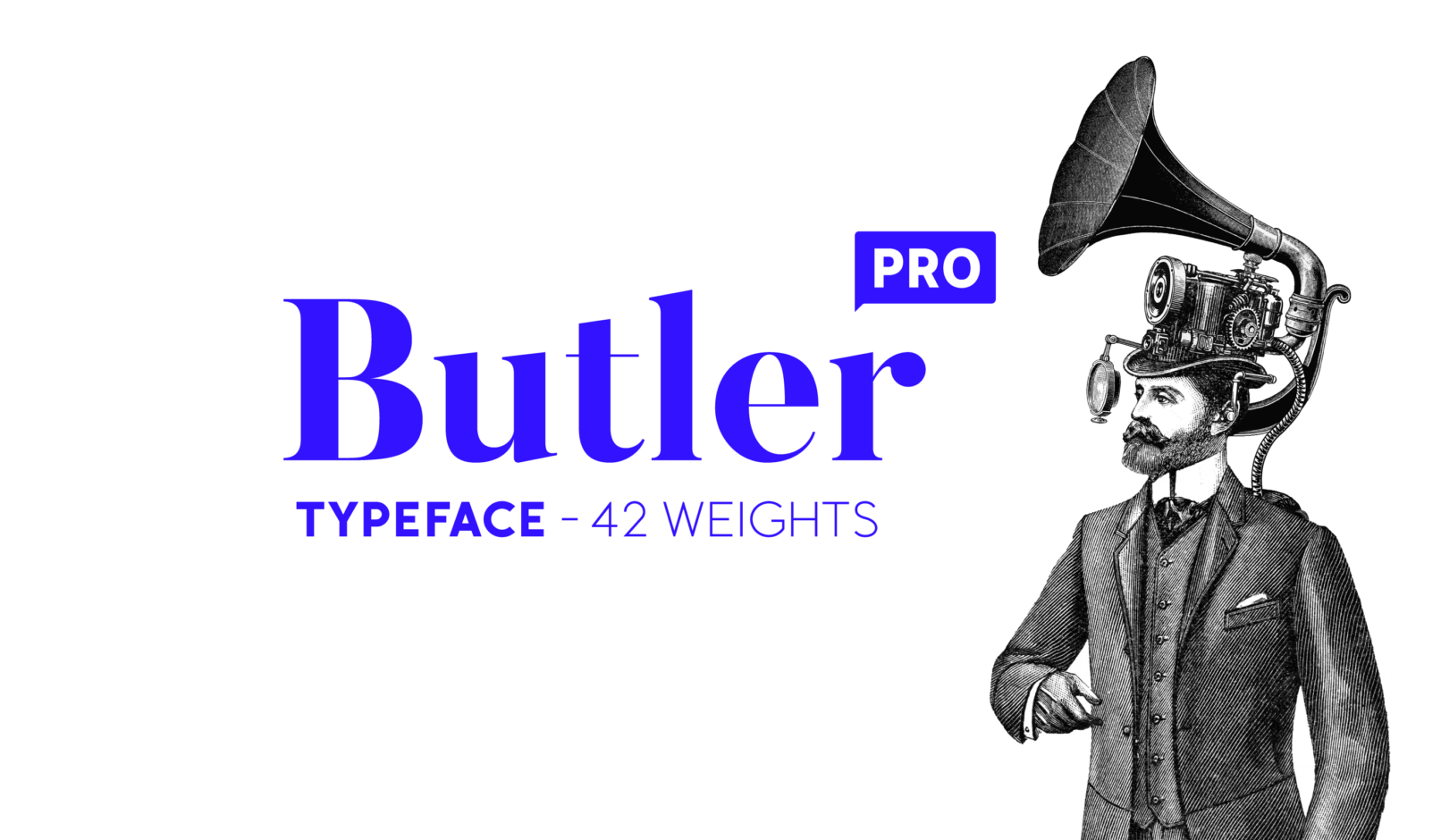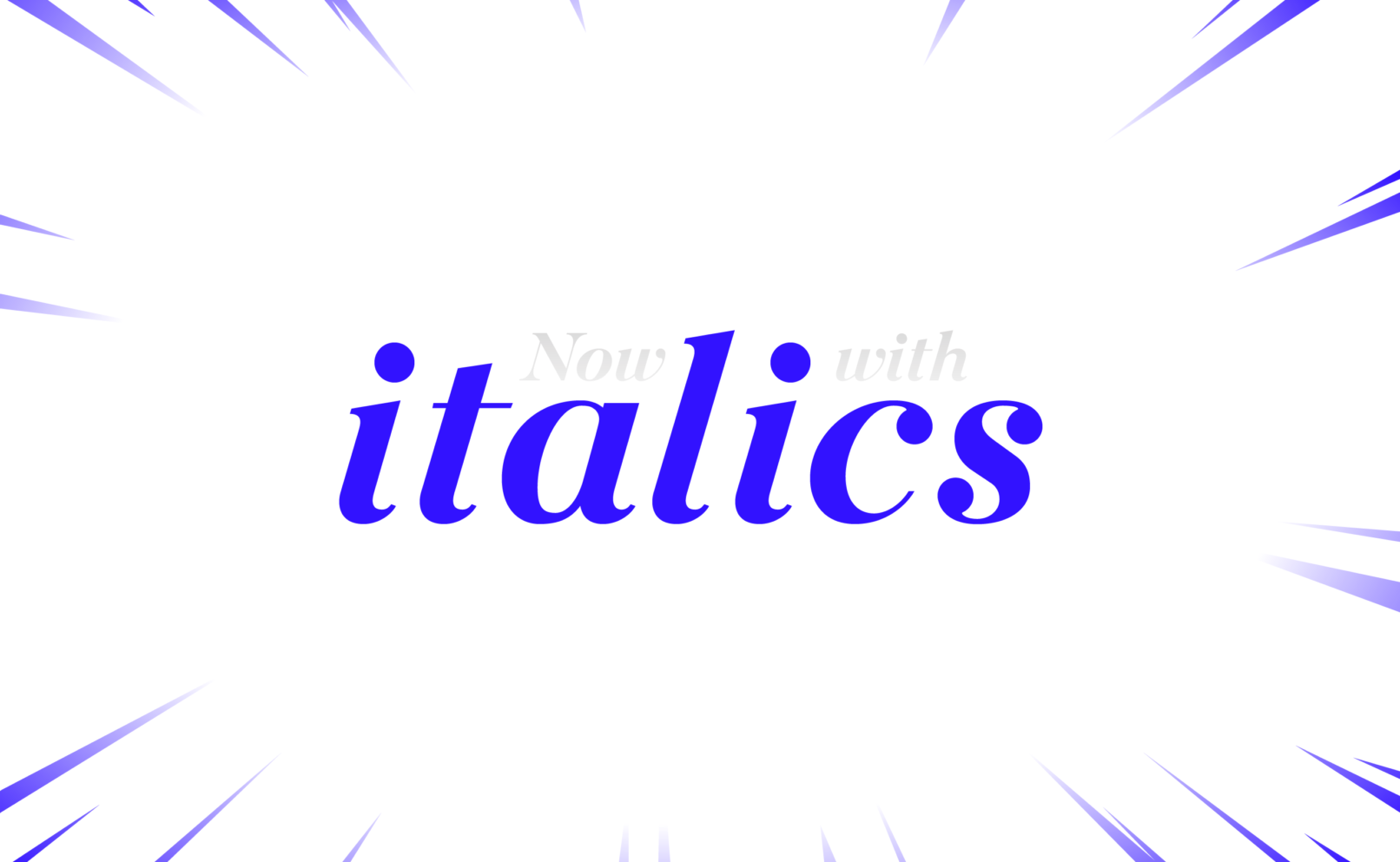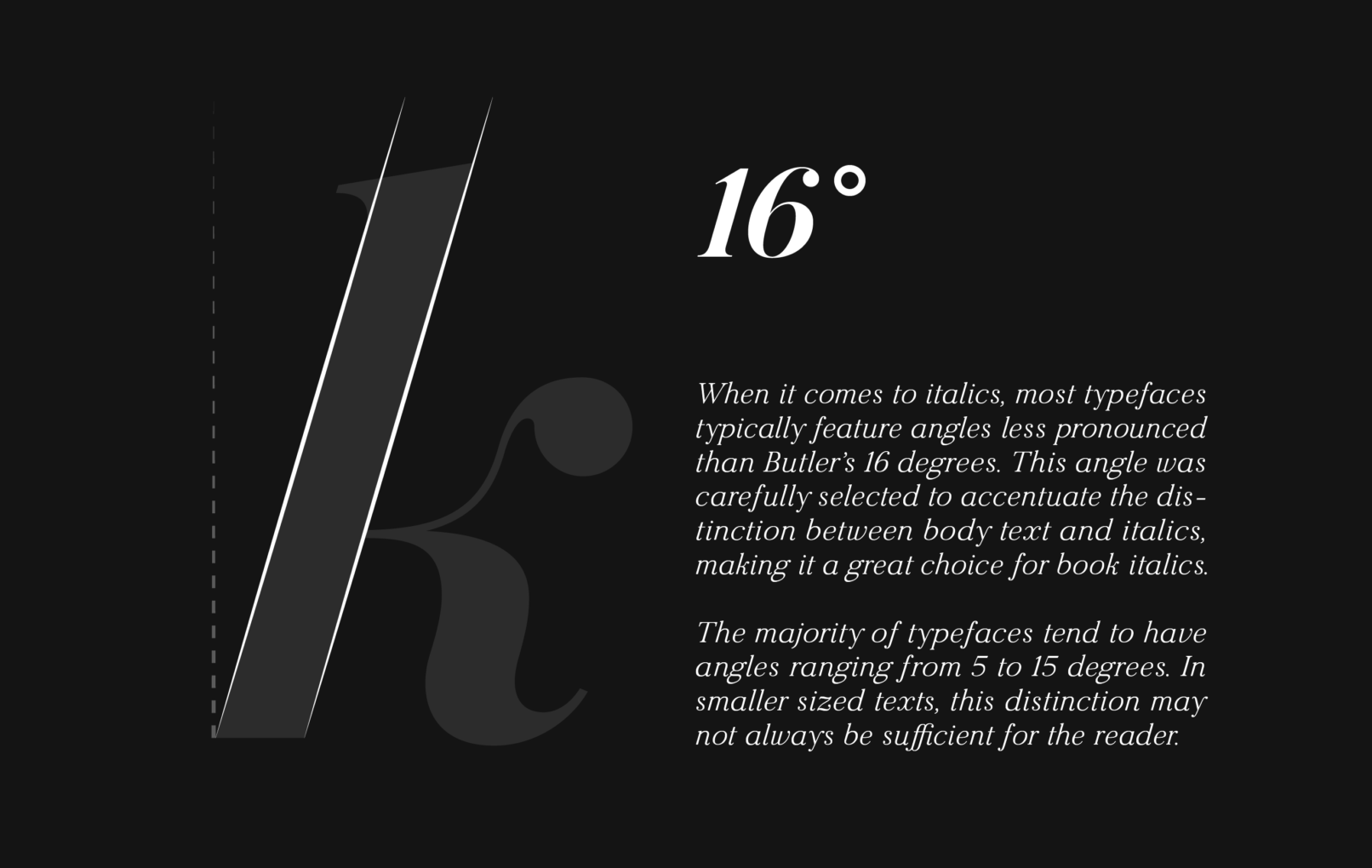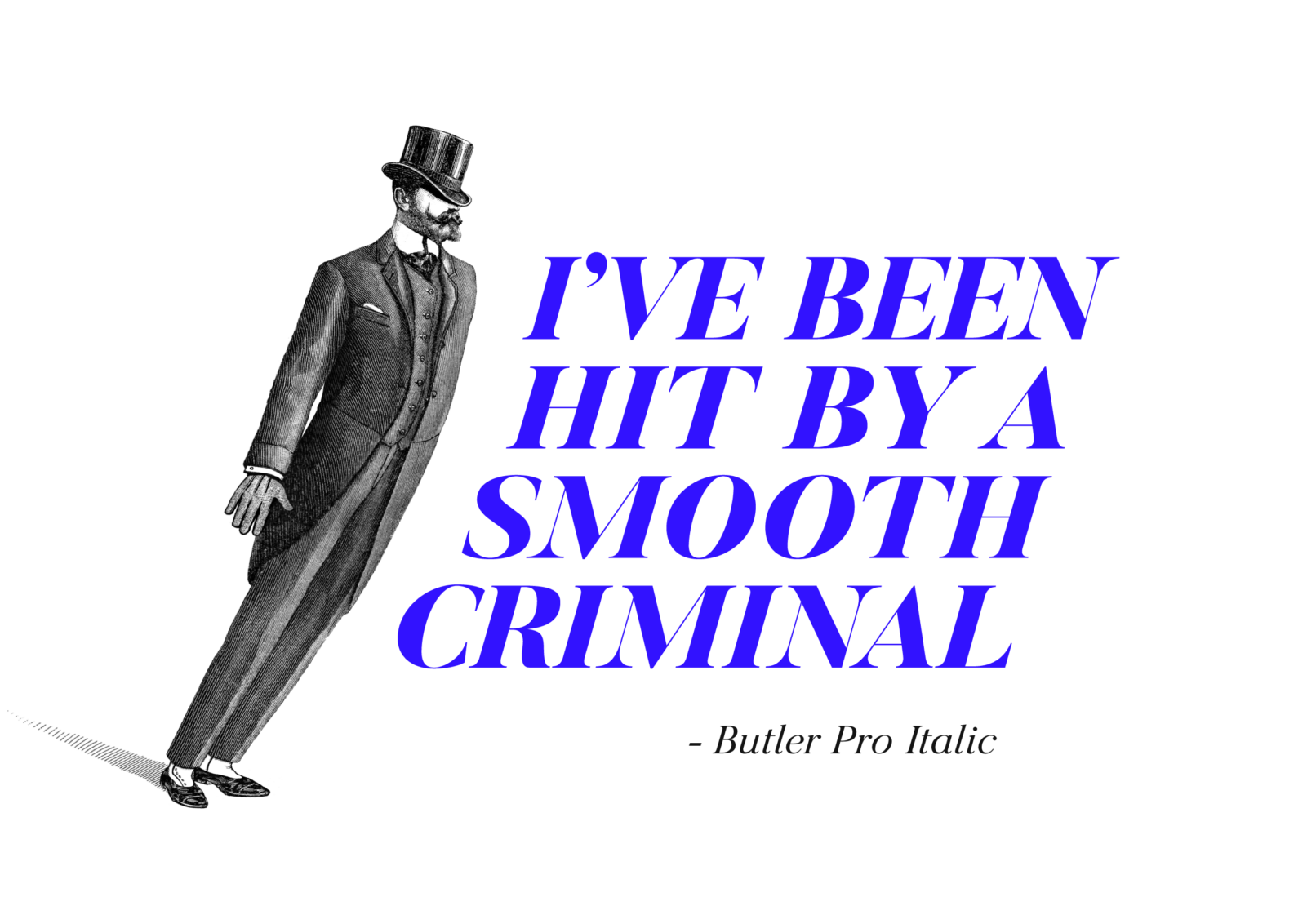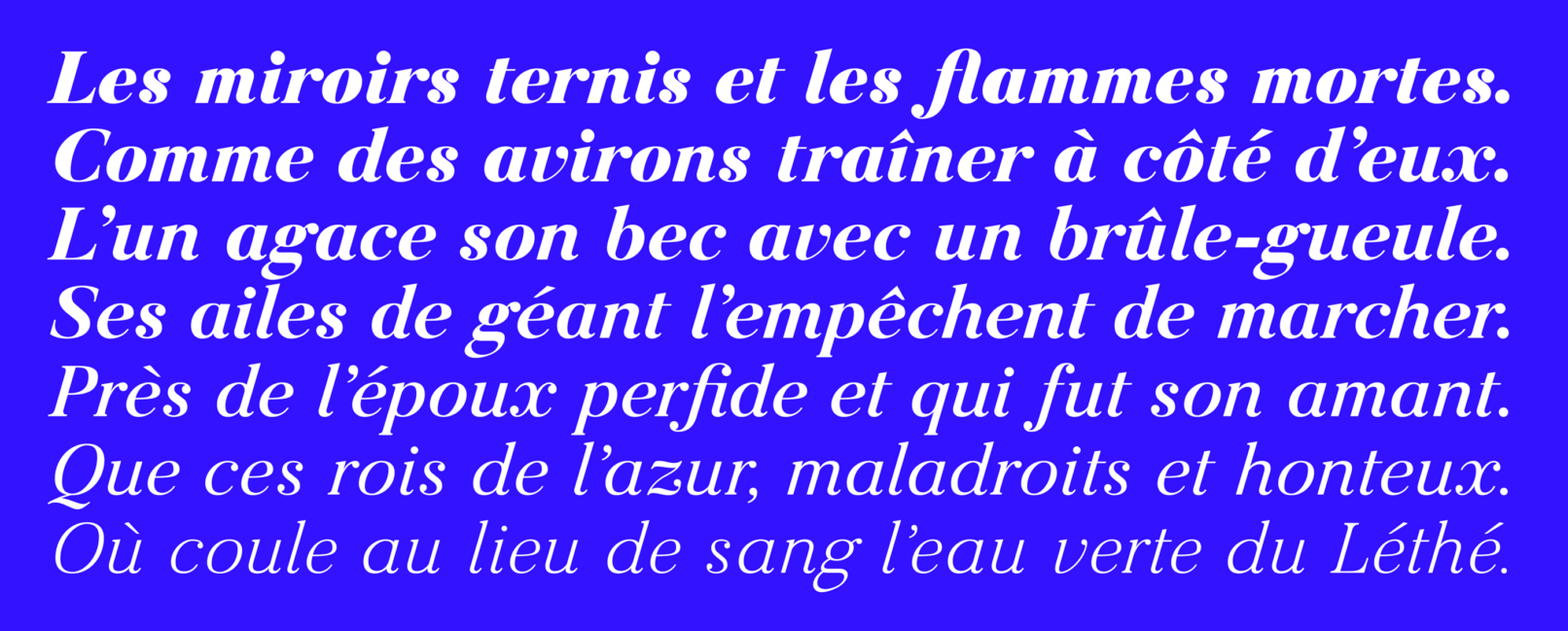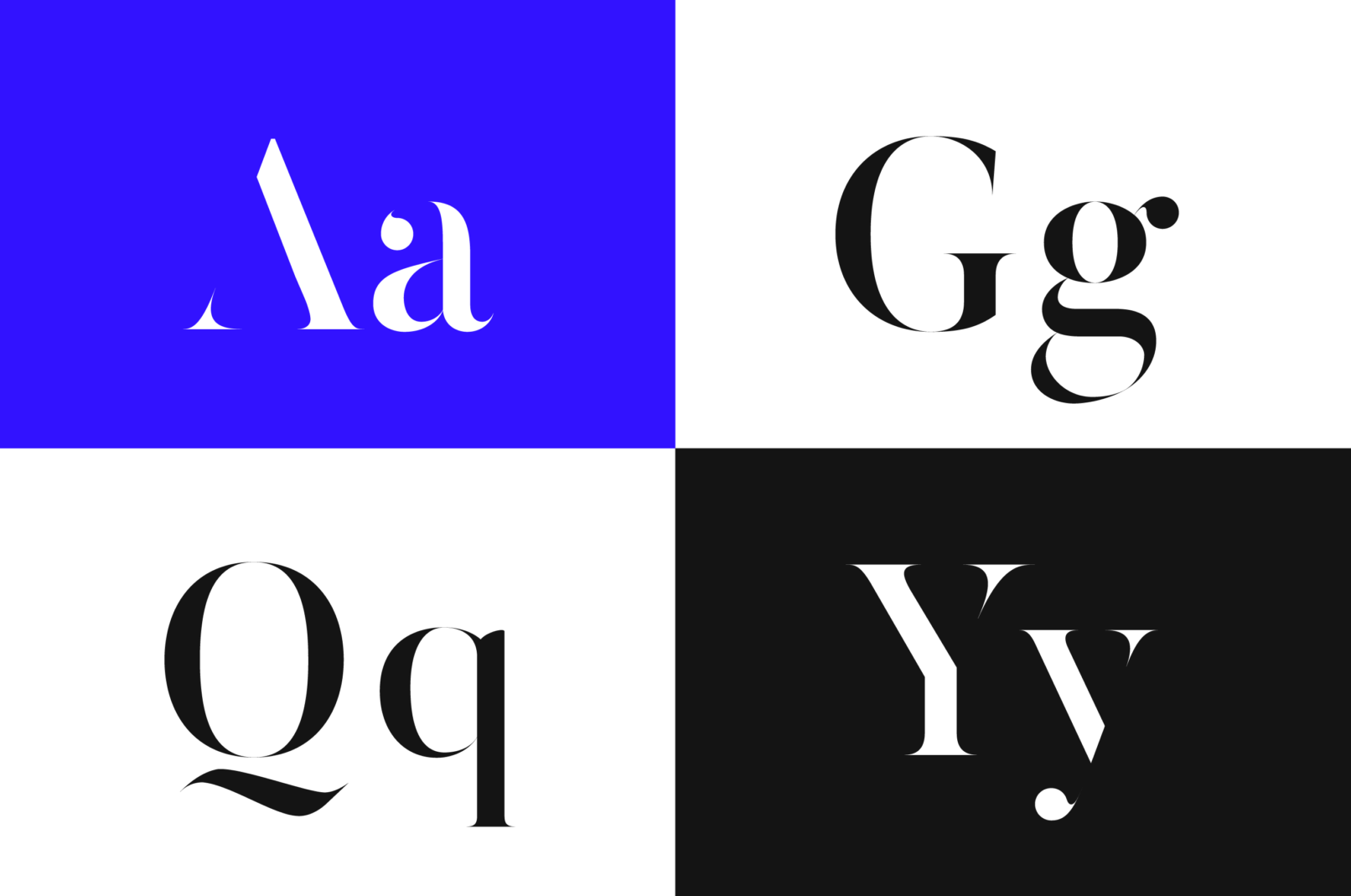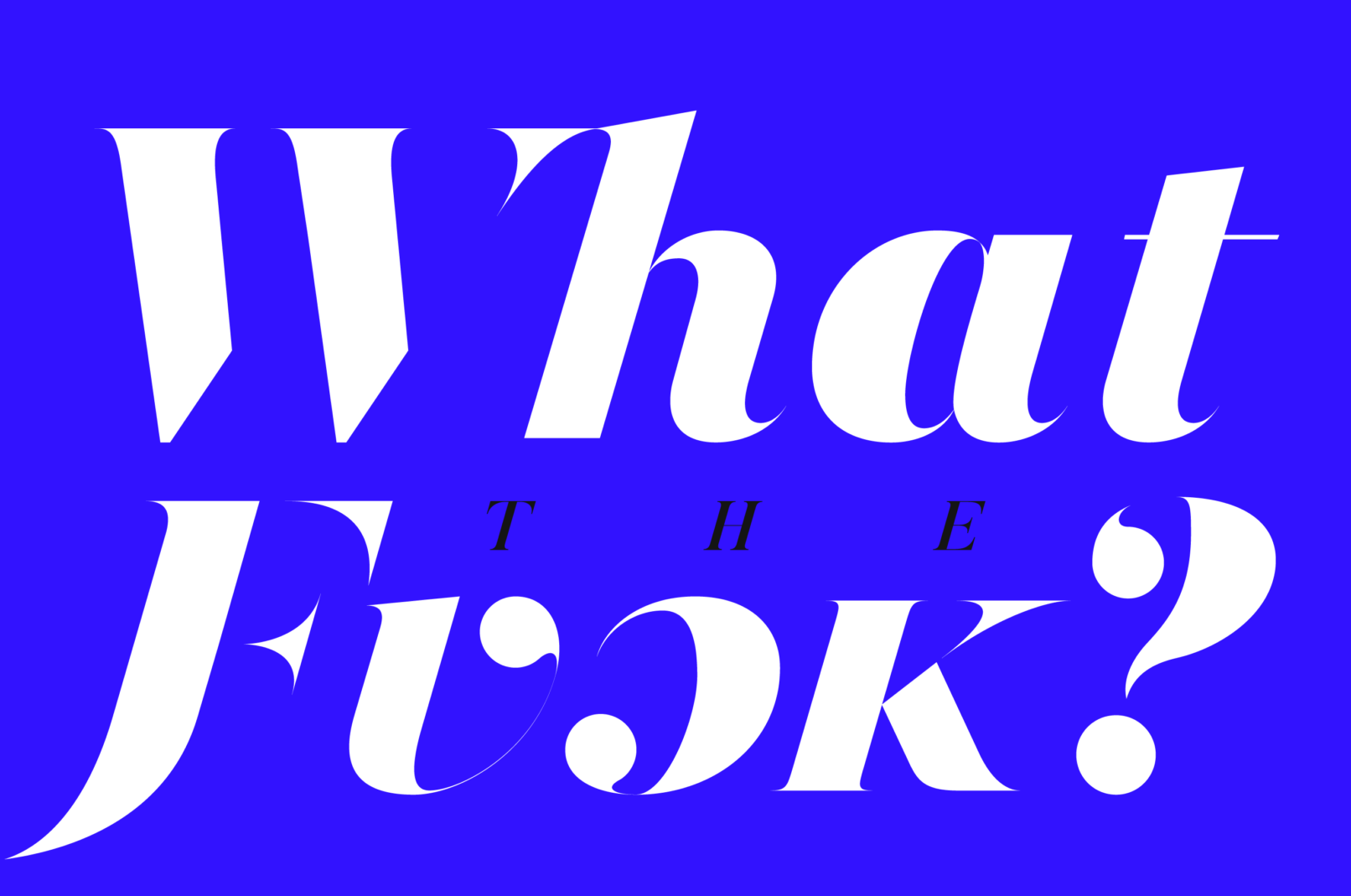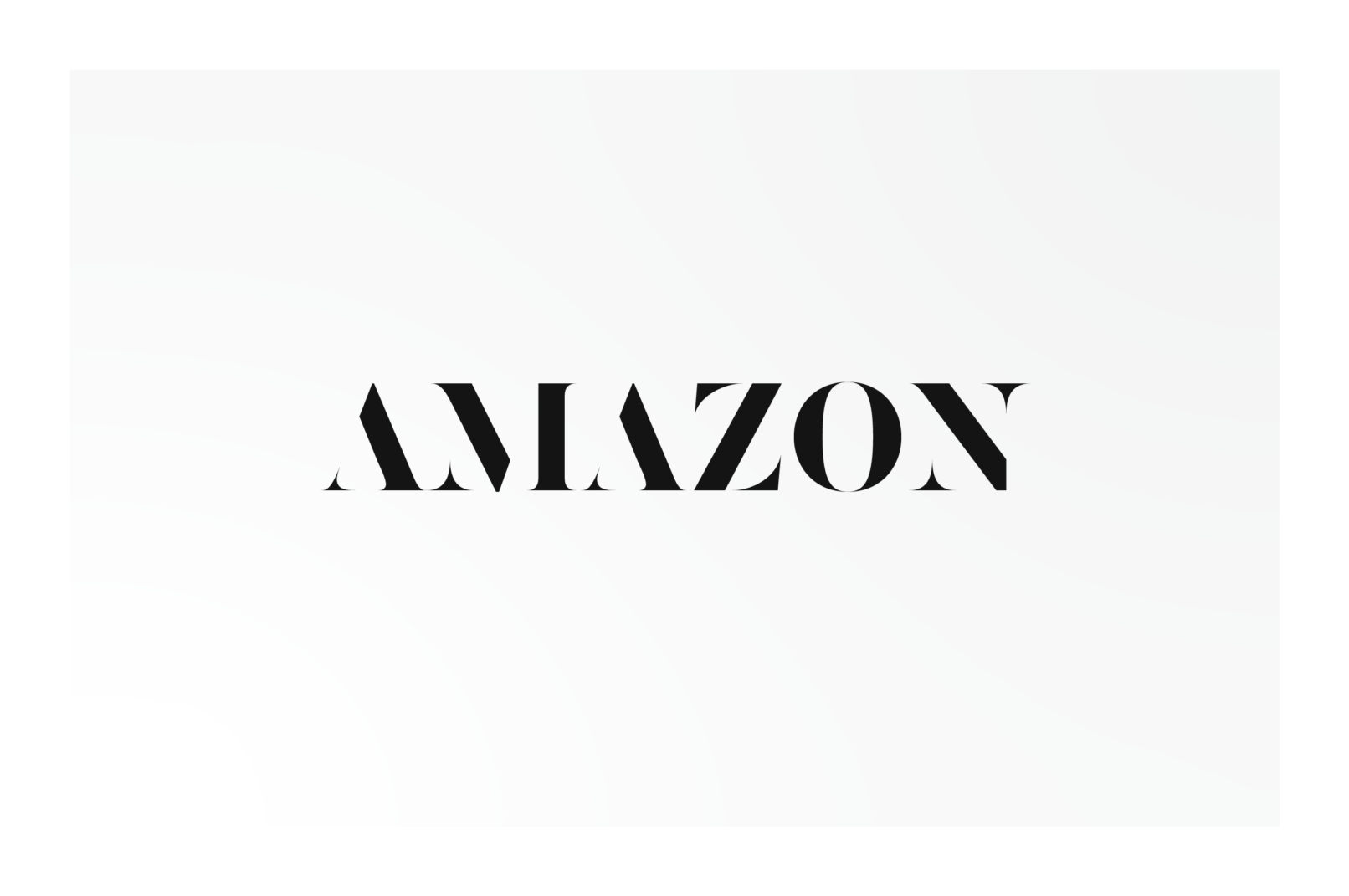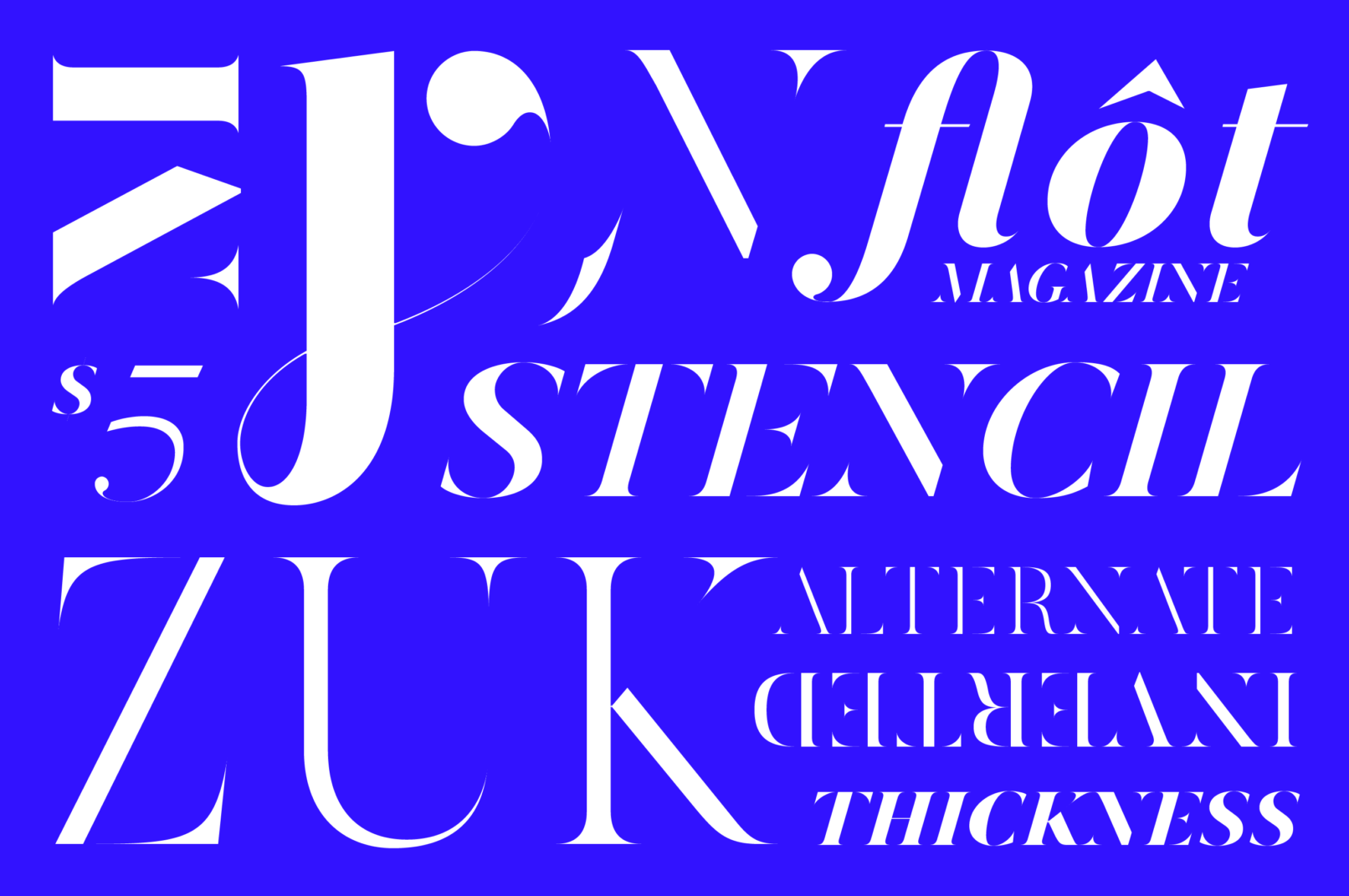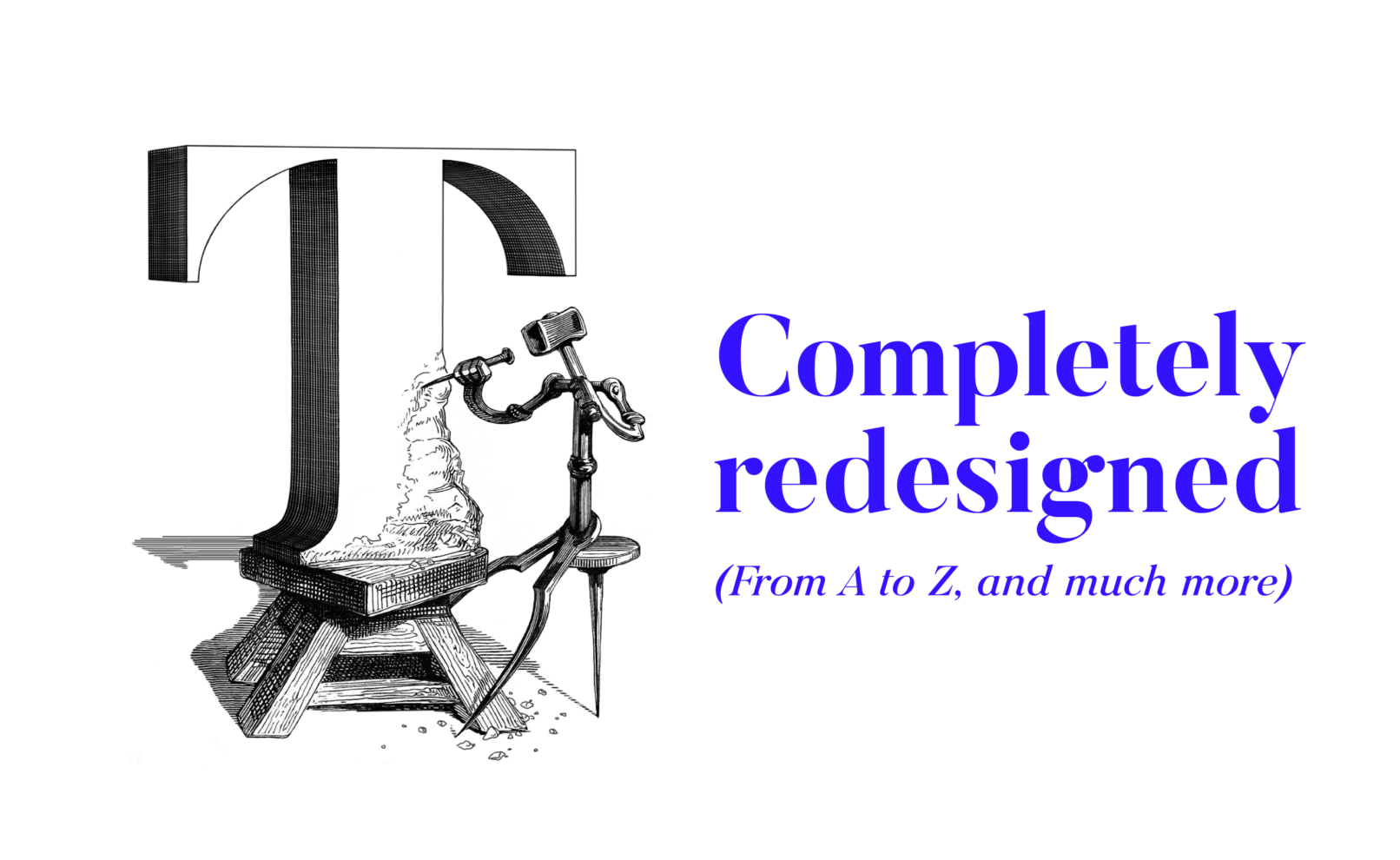
After the resounding success of the Butler Free Font family with over 2,000,000 downloads, and responding to requests for more features, I am glad to announce the Butler Pro Font family is finally here. Butler Pro is a complete, professional serif family designed for designers, agencies, and brands seeking elegance, legibility, and versatility.
This typeface includes:
• A complete ground-up redesign
• 42 meticulously crafted fonts for all design needs
• Elegant italics complementing the regular weights
• A fancy and sophisticated stencil version for creative designs
• Normal and Display weights for enhanced legibility, impactful titles and body text
• Extensive language support: 700+ characters covering almost all Latin-based languages
• Improved spacing and kerning with over 1200 rules and exceptions
• OpenType features: ligatures, case-sensitive glyphs, old-style figures, and more
• Enhanced balance and symmetry across all styles
• And more to come!
Why choose Butler Pro?
Butler Pro is designed for professional use. Whether creating branding, editorial layouts, large titles, or complex typographic compositions, Butler Pro combines beauty and utility. Its extensive glyph set and refined OpenType features make it a professional serif font ready for commercial projects.
Introducing the Butler Pro family: one serif to rule them all.